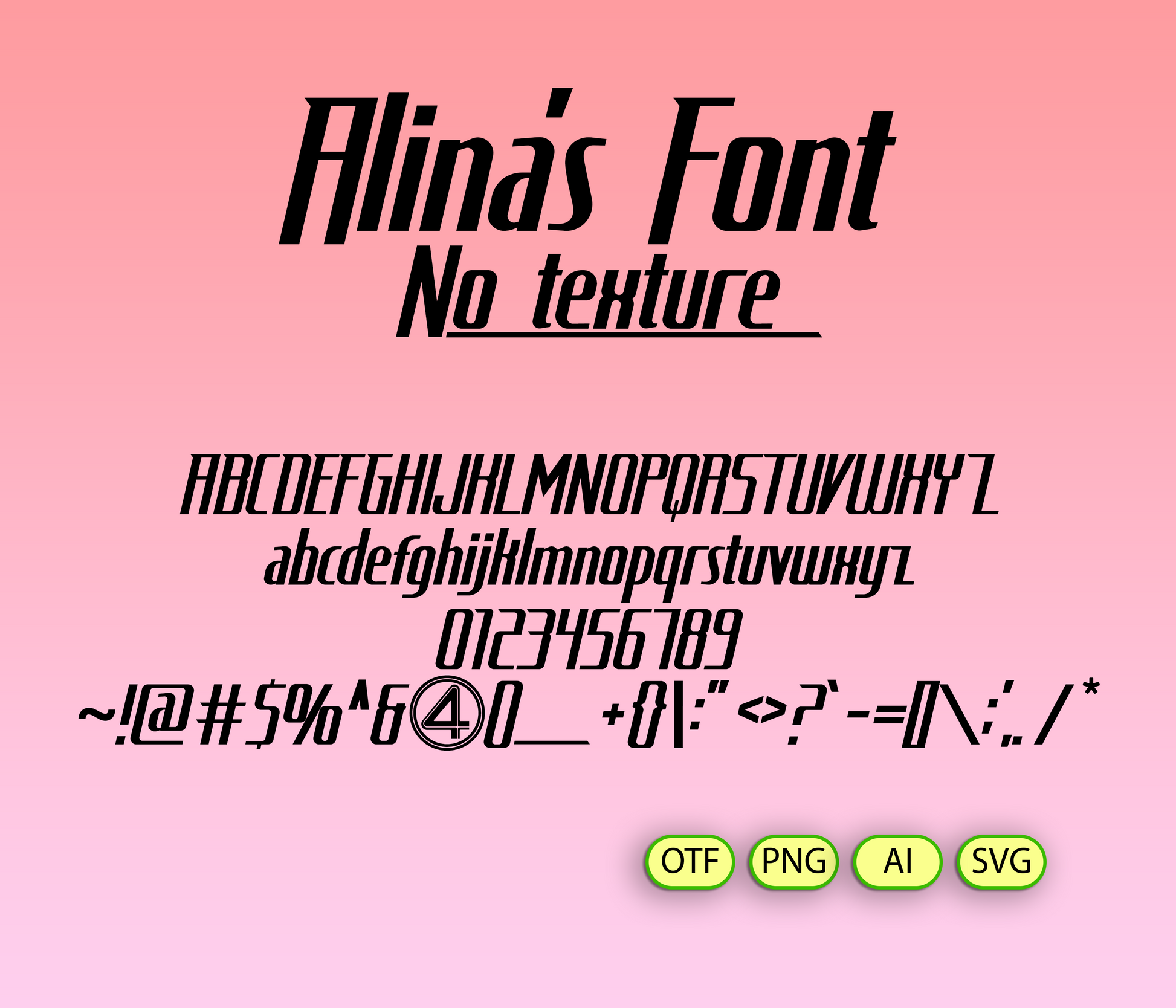
Phenomenal Space Explorers Font
Step into the awe-inspiring realm of galactic discovery with our Phenomenal Space Explorers font, embodying the spirit of a renowned superhero family team. Perfect for devotees, graphic storytellers, occasion coordinators, and designers, this font delivers the science-driven, power-packed essence of four celebrated heroes to your creations. Develop celebration announcements, themed merchandise, or digital illustrations with the bold energy of this beloved quartet's escapades.
Our Phenomenal Space Explorers font exhibits powerful, scientific curves and dynamic characters mirroring the incredible qualities of these universe-traversing protectors. Ideal for:
1. Gathering Invitations: Impressive invites, displays, streamers for meetups, cinema evenings, themed festivities.
2. Collectible Development: Clothing, artwork, memorabilia capturing the essence of stellar adventures.
3. Web Presence: Transform websites, journals, community platforms with striking headers and imagery.
4. Visual Narratives: Authentic flavor for drawn stories, pictorial tales, enthusiast creations.
5. Personal Endeavors: Innovation and excitement for keepsake collections, artisanal crafts, home embellishments inspired by the incredible foursome.
Many hunt for an online typeface creator to duplicate the look of the Phenomenal Space Explorers Font. Steer away from these alternatives! No generator can rival the superiority of our font, which is presented in a refined, texture-free format that permits you to incorporate your preferred shades, treatments, and styling.
Our font celebrates the illustrious team, elevating your designs with its inventive and valiant character. Whether producing promotional elements, fashioning merchandise, or introducing a vibrant component to personal projects, this font conveys the audacious nature of these heroes. Eager to infuse cosmic adventure into your designs? This font is your gateway to impressive, impactful creation.